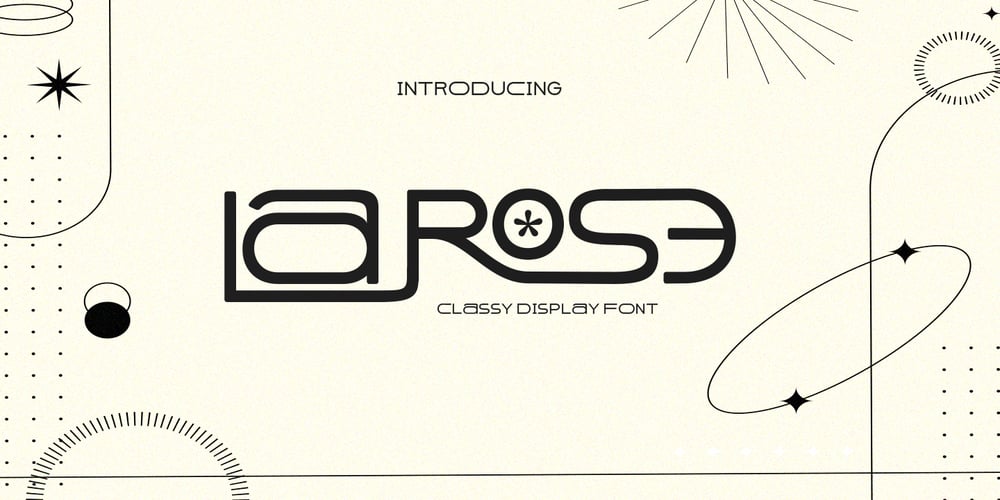
La Rose Display
La Rose Display font
La Rose Display Font Family was designed by Jumm ati and published by Masa Type. La Rose Display contains 4 styles and family package options. La Rose is Display Sans, designed to look modern & minimal in any setting. Designed for optimal readability, its clean geometric look is perfect for things like fashion, magazine, logo, branding, headers, titles, corporate brochure designs.Typeface also supports Latin-based languages. Other details include 4 font weights, 290 characters, manually edited kerning and an Opentype alternative feature.